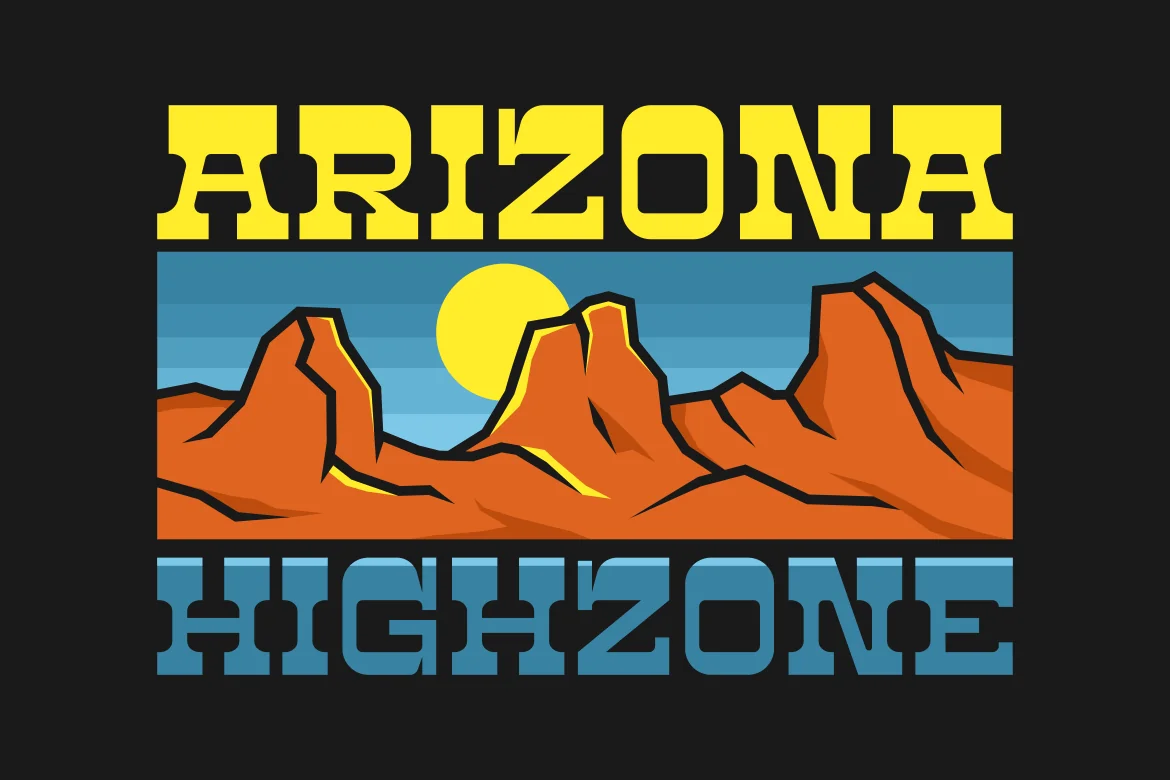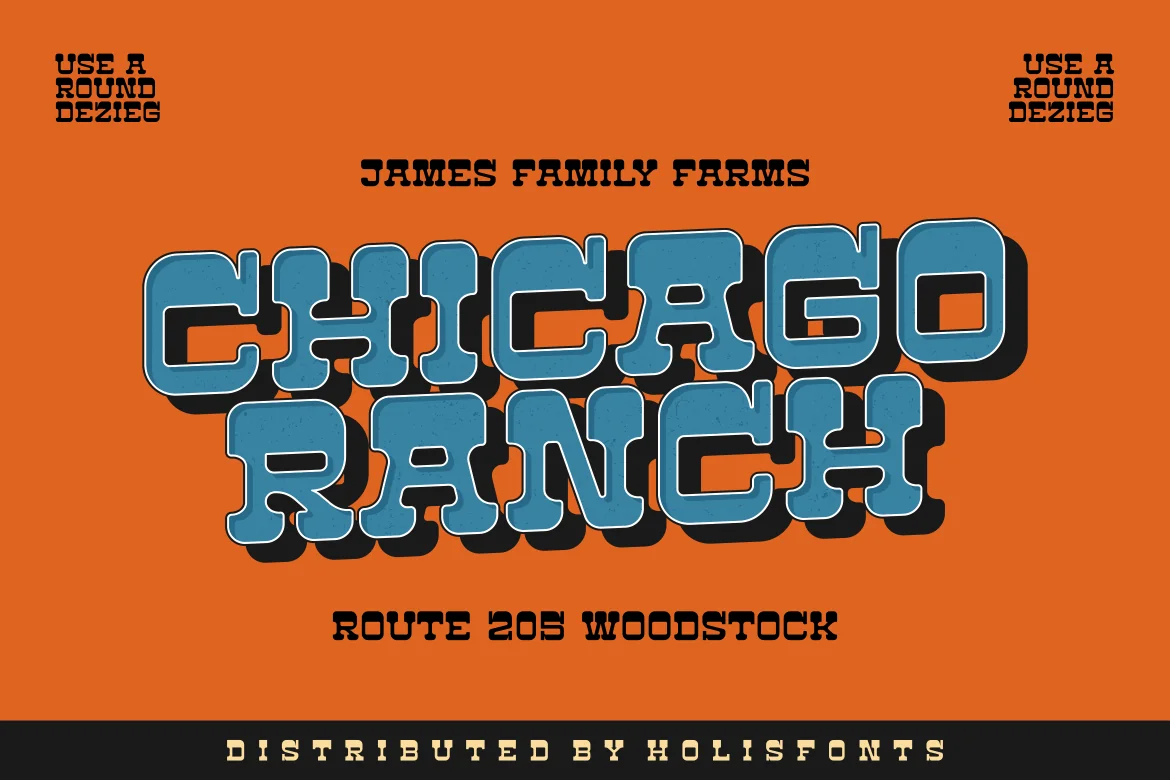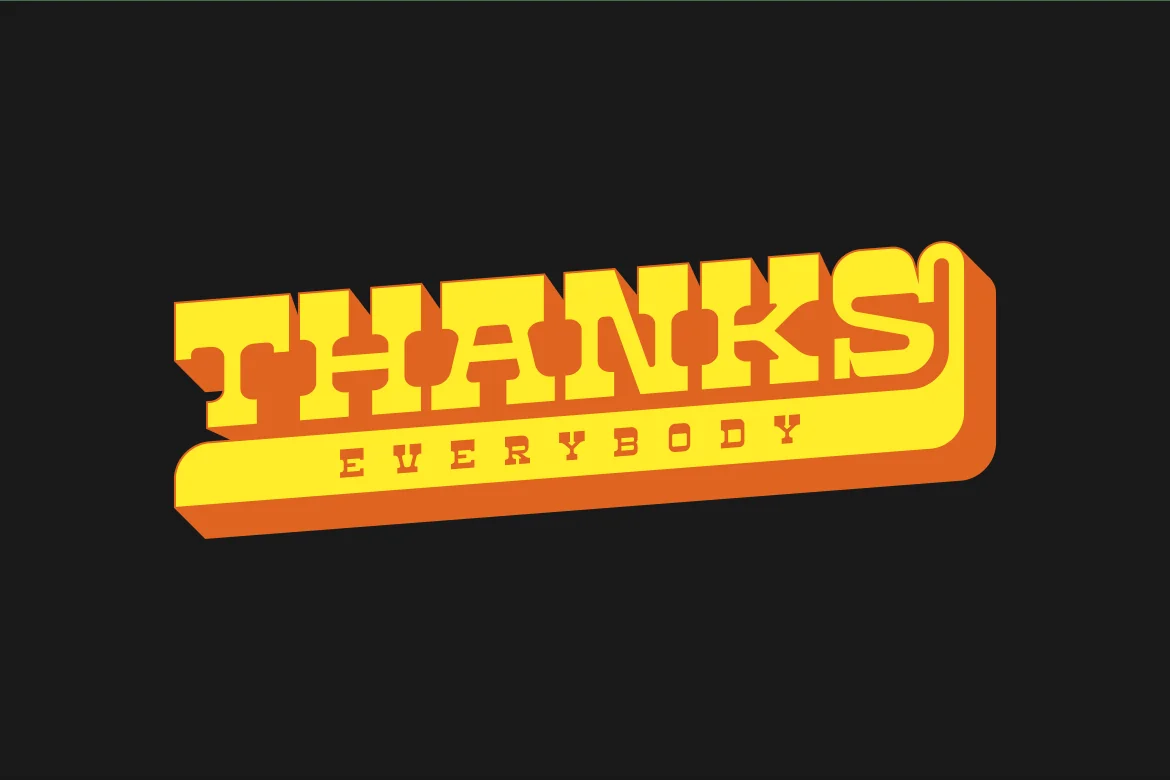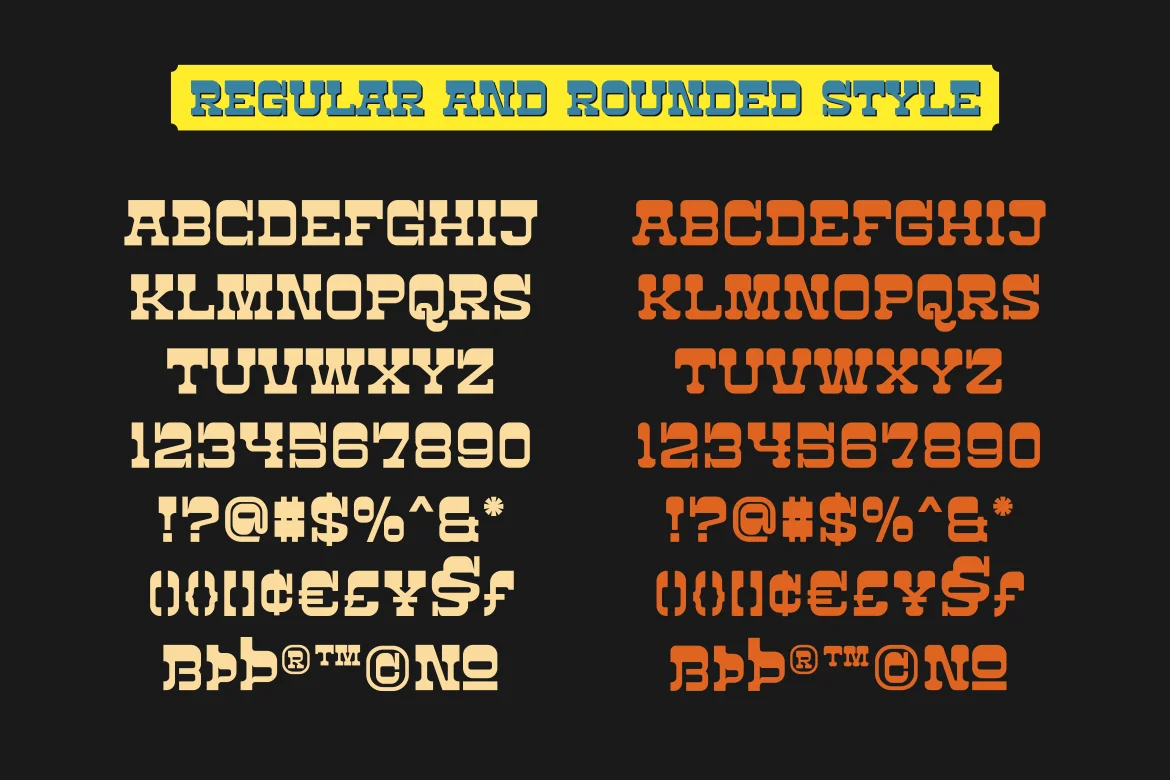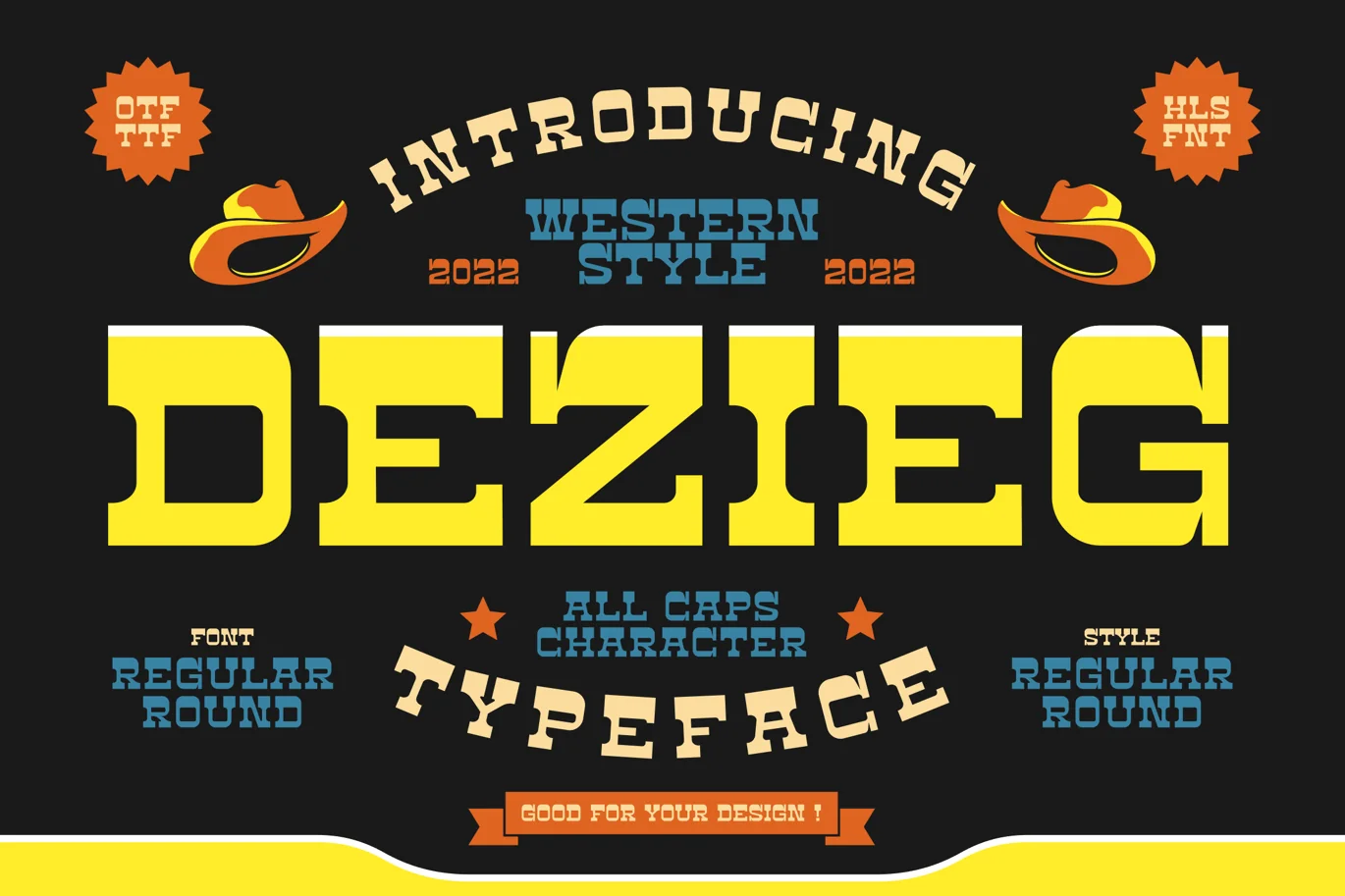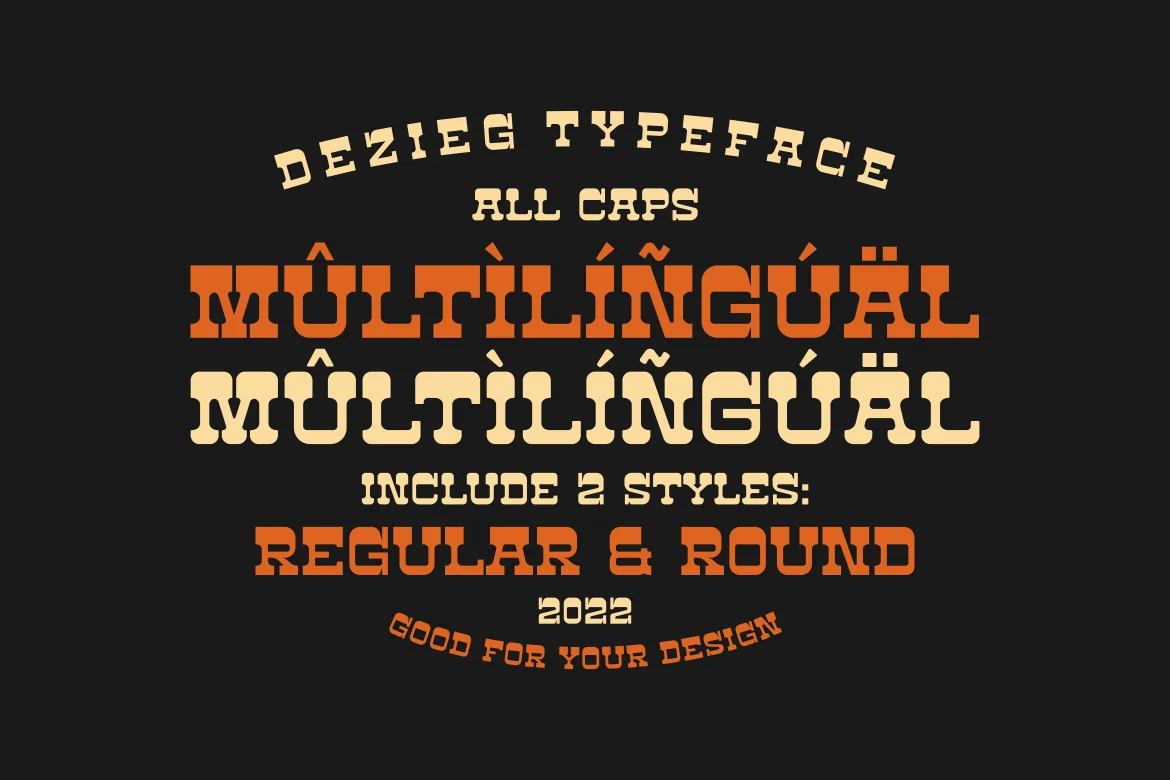
Dezieg Western Typeface
Dezieg inspired by cowboy and rodeo posters in the states of the united states and beyond. With thick typed characters at the top and bottom it has thick characteristics.
This font is all caps in A-Z and a-z and of course comes with 0-9 and other important symbols in type.
- All caps Character
- Include 2 Styles (regular and round)
- Symbol